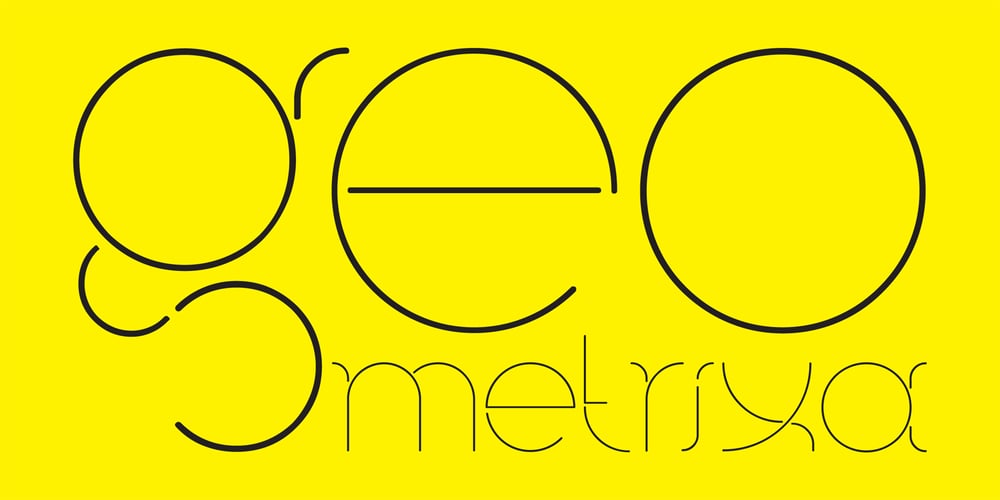
MB GEOMETRIXA Font Family was designed by Ben Burford and published by Ben Burford Fonts. MB GEOMETRIXA contains 1 styles and family package options. Inspired from geometric curves and circles, an audacious lower case display face with some alternate characters in Upper and Lower case glyphs. Great for Logos and Logotypes, headlines and larger text. Works well with smaller strap lines as well.